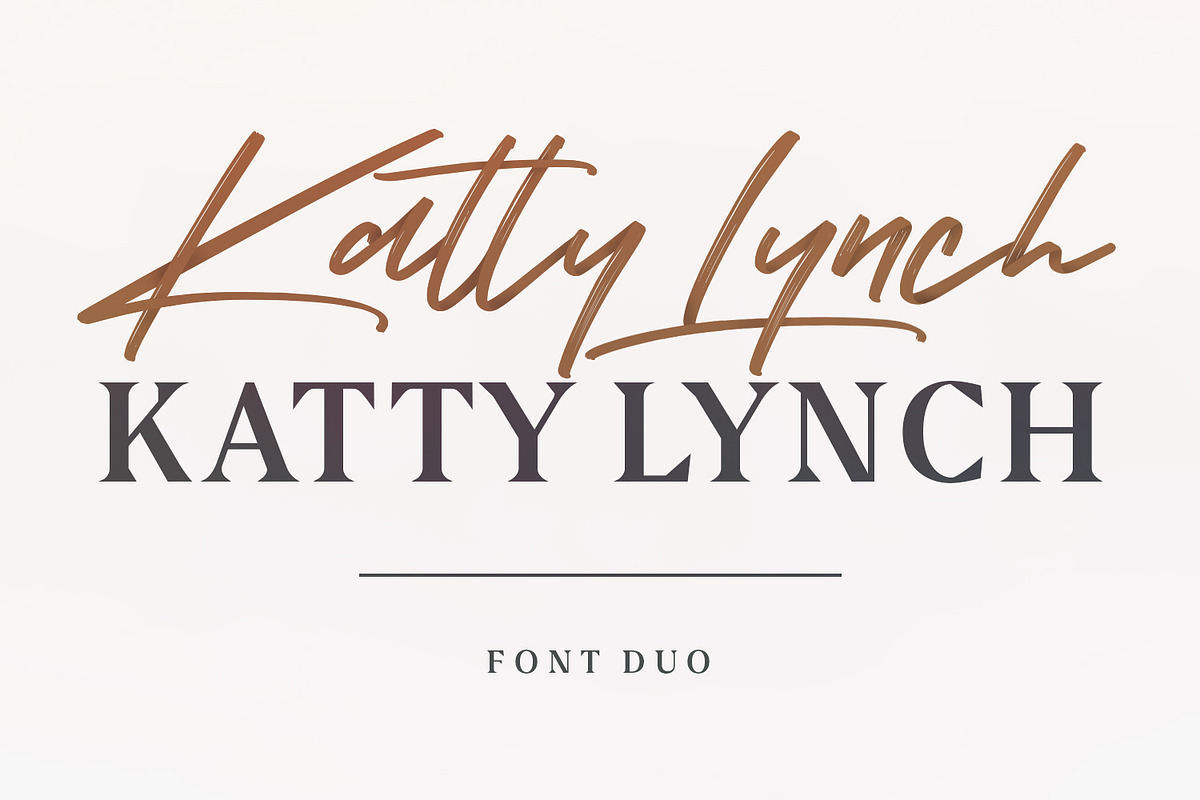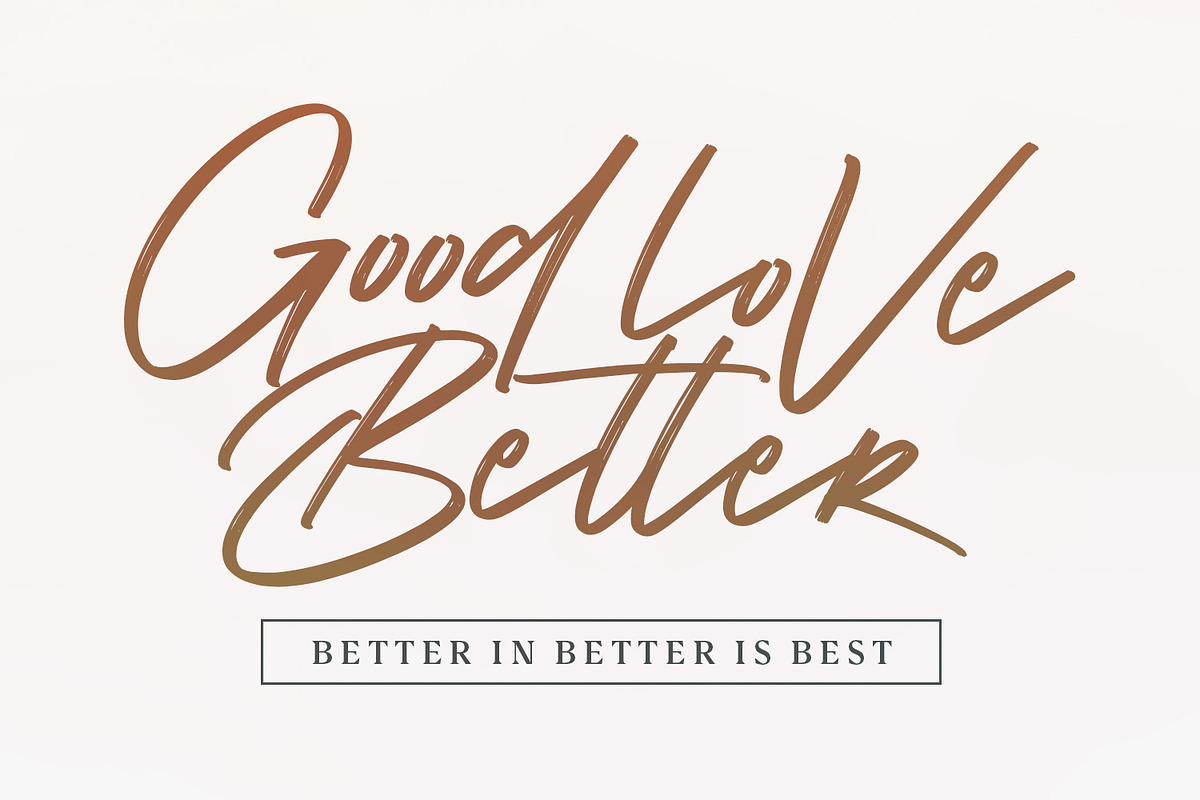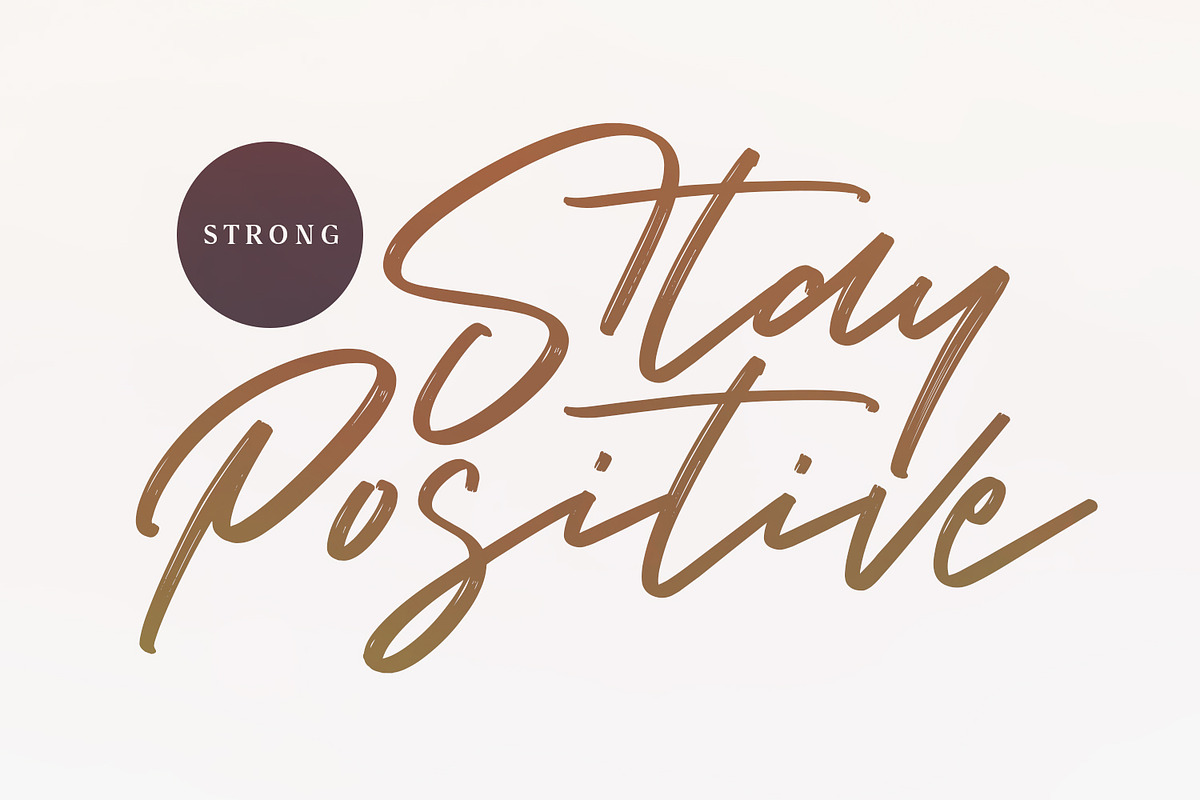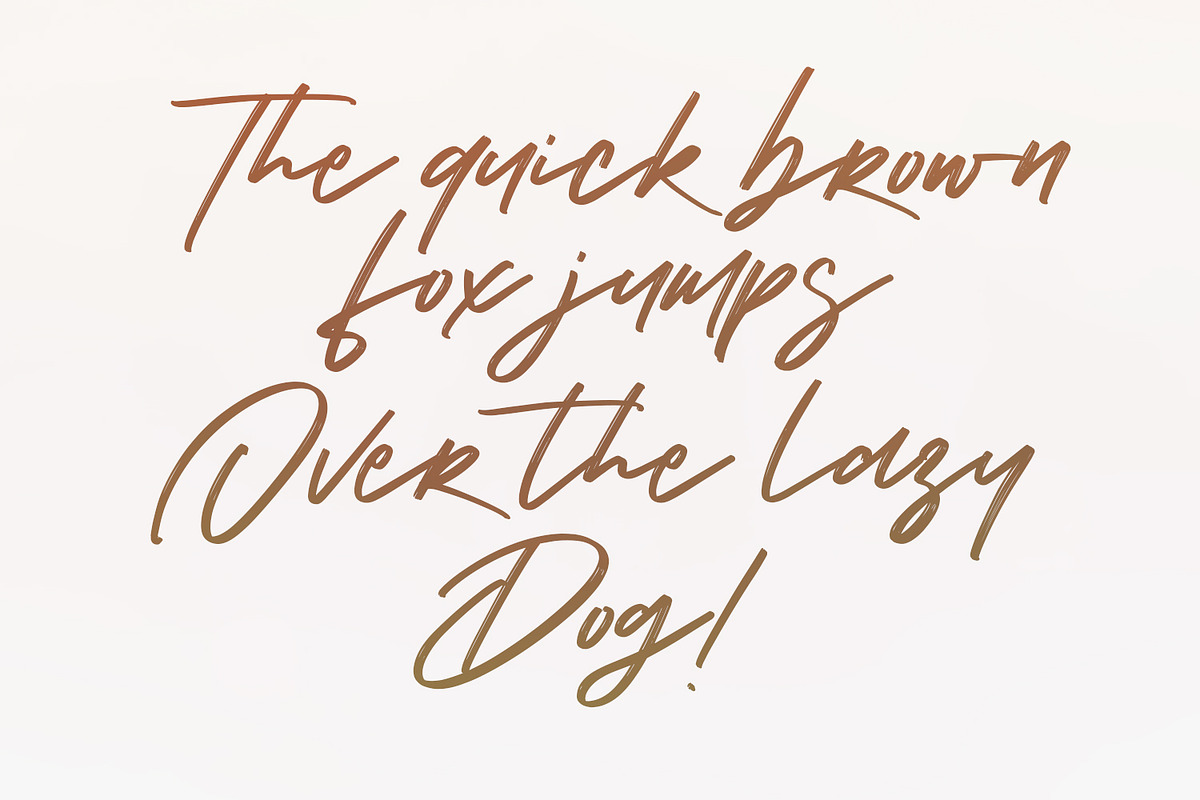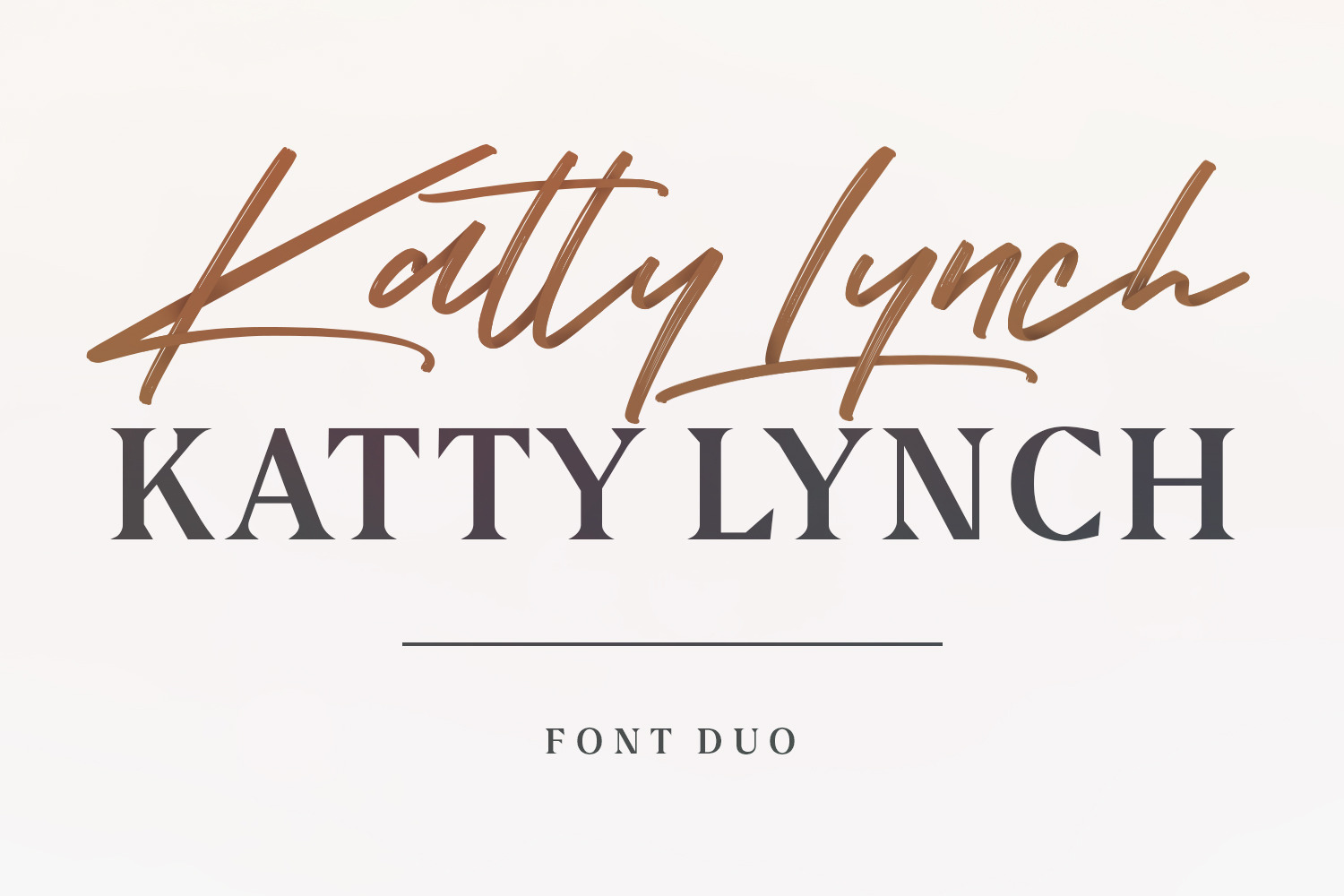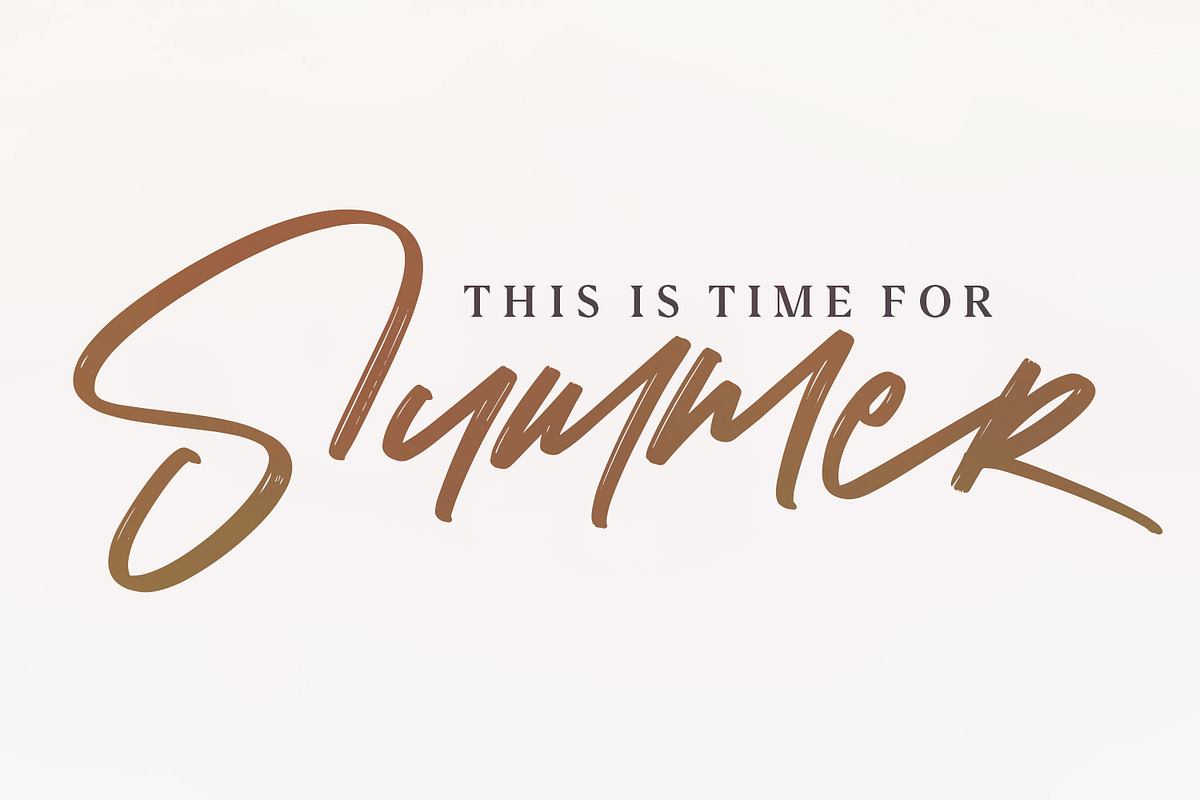
Katty Lynch Brush Font – Free Serif
Give your designs an authentic brush handcrafted feel. “Katty Lynch Brush Font” is perfectly suited to signature, stationery, logo, typography quotes, magazine or book cover, website header, clothing, branding, packaging design and more. Included Ligatures.